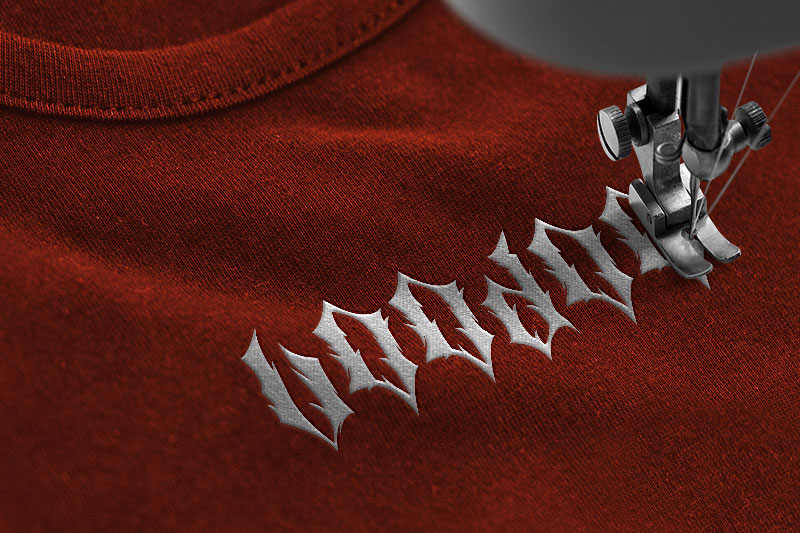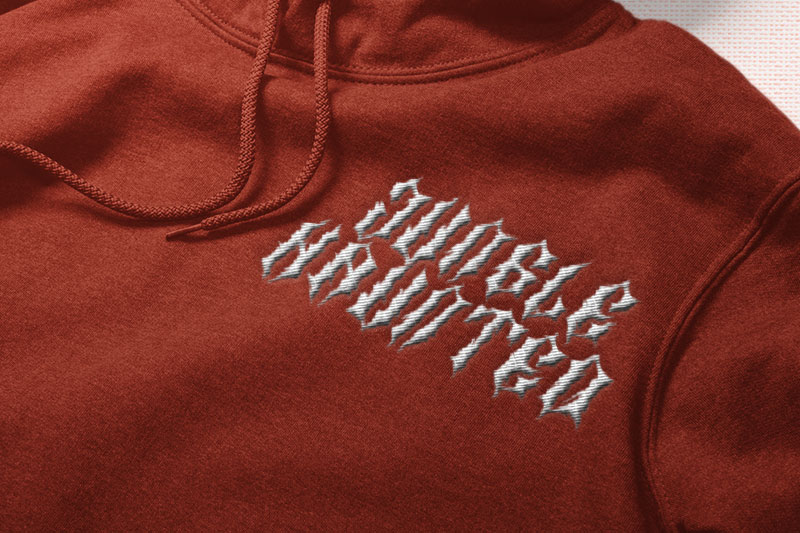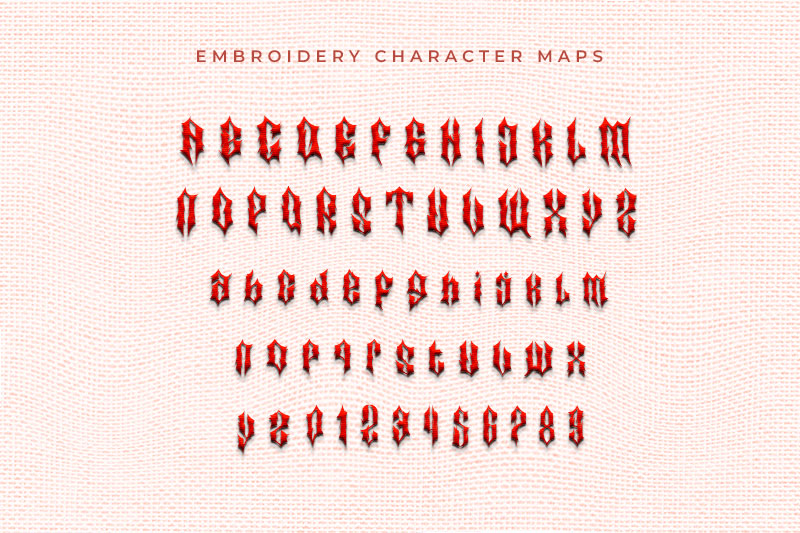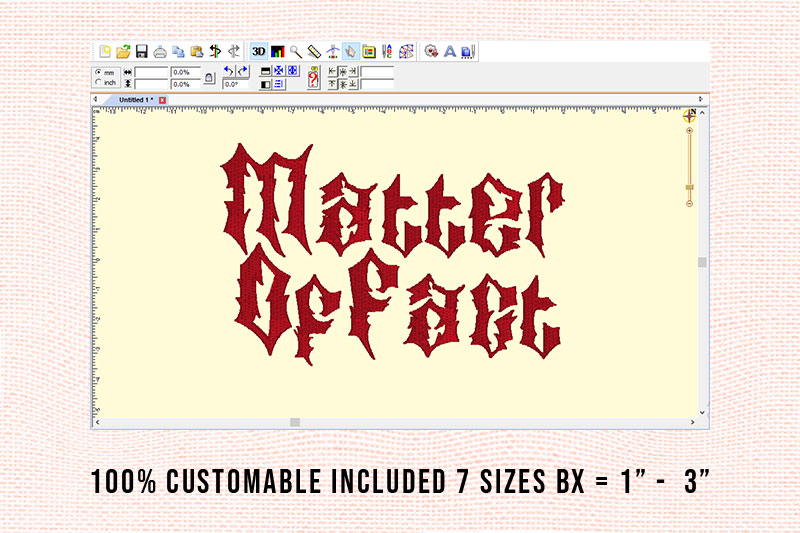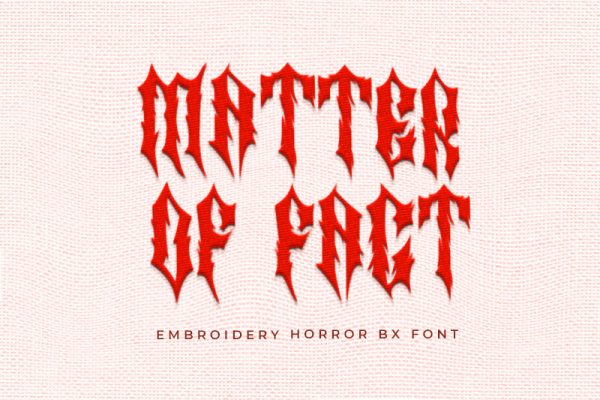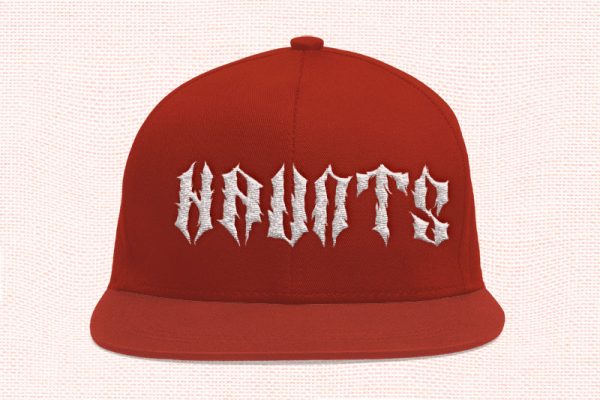
Matter Of Fact Embroidery Font
Talking about embroidered fonts will be very fun. Their appearance looks very warm and smooth making anyone who sees it will be amazed. This time, we present a new type of Embroidery font, called Matter Of Fact Embroidery Font. We created this font for digital and print use. You can also choose different file sizes and kinds to use.
Matter Of Fact Embroidery Font is perfect and has the same line width. This characteristic makes Cookies Bold Embroidery Font display the impression of being modern and unique when viewed carefully and combined with appropriate objects.